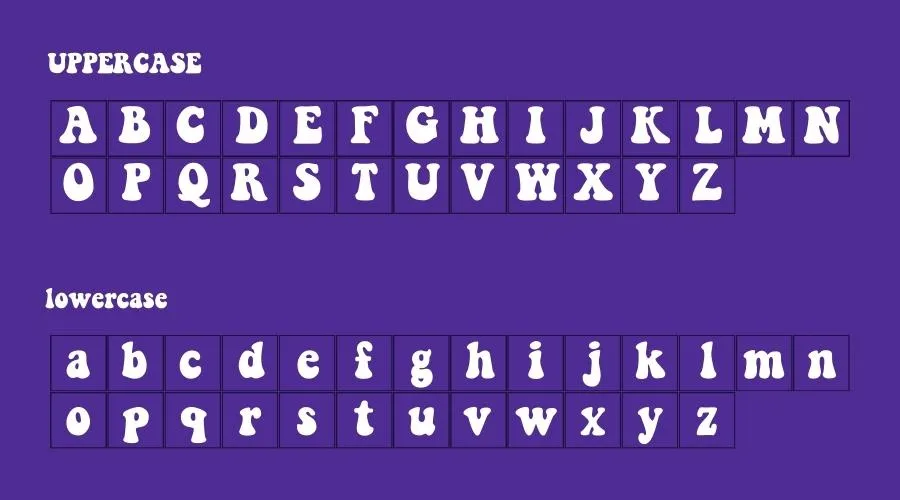
About Groovy Font
The Groovy Font is an attractive display texture that was created by Billy Argel. This gorgeous typeface was published through salami type in 1993 with Altera wide angular weights (bold, semi-bold, italic, Regular) and styles.
It is the perfect choice for all your fun methods and techniques. This unique texture has considerable glyphs and a special surface of the alphabet set, including capital and small characters, digits, signs, symbols, punctuation, and many other eye-catching constructions.